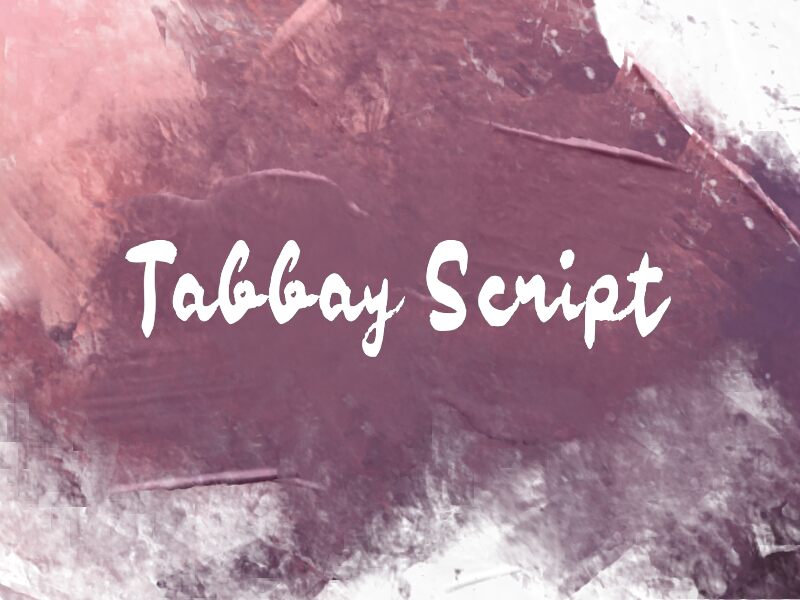
Tabbay font, designed by wepfont.com, is a free brush font that exudes a relaxed and organic balance. Its expressive and dynamic nature gives it an artistic and casual feel, making it perfect for projects that require a touch of whimsy and informality. With a hand-drawn aesthetic, Tabbay brings an unrefined yet impactful essence that speaks volumes in every word.
Use Tabbay to breathe life into brand designs, product packaging, kids projects, in-store interior graphics, and more. A unique addition to various stationery designs, this font makes logo design, greeting and invitation cards, headlines and titles, social media posts, and cards pop with ease.